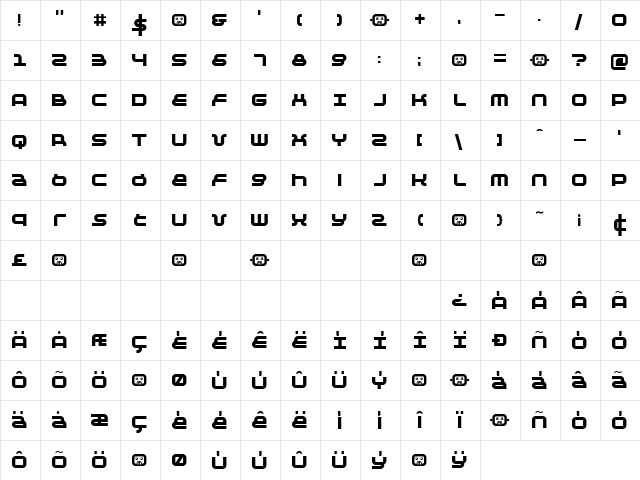
Negative 24 Regular
Design Context for Negative 24 Typeface
Negative 24 offers clean, dependable letterforms without strong stylistic allegiance, making it a practical choice for designers who need flexibility.